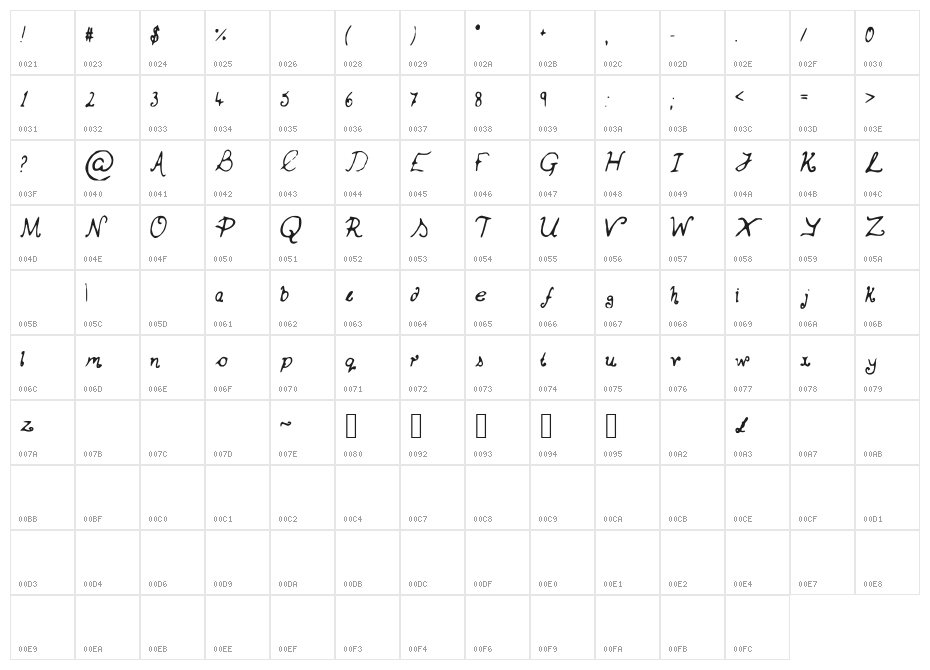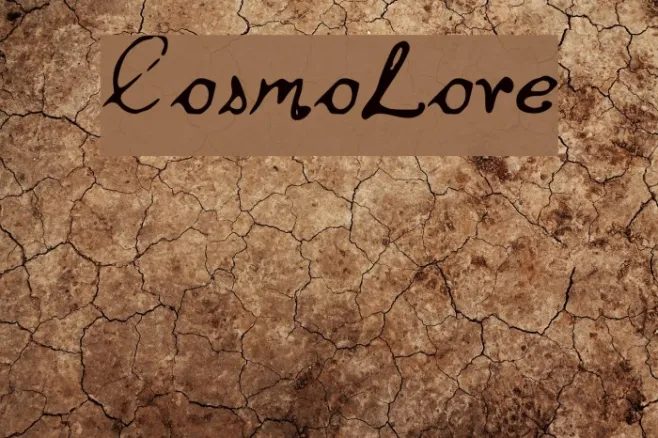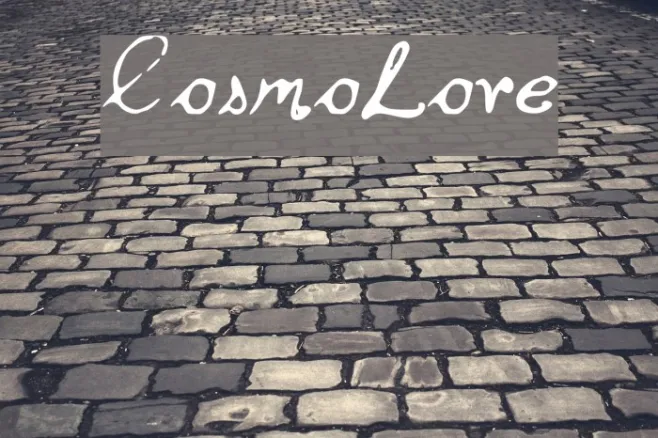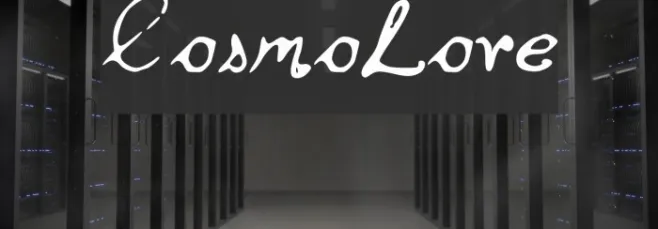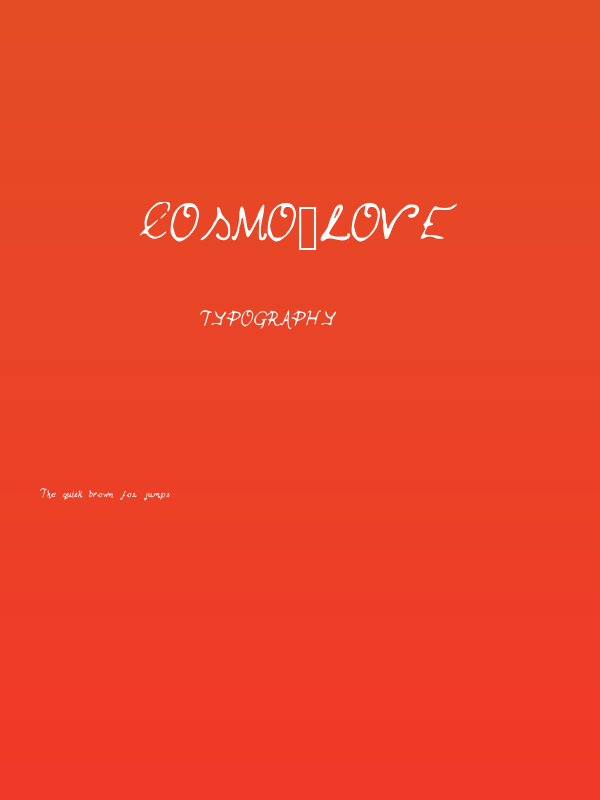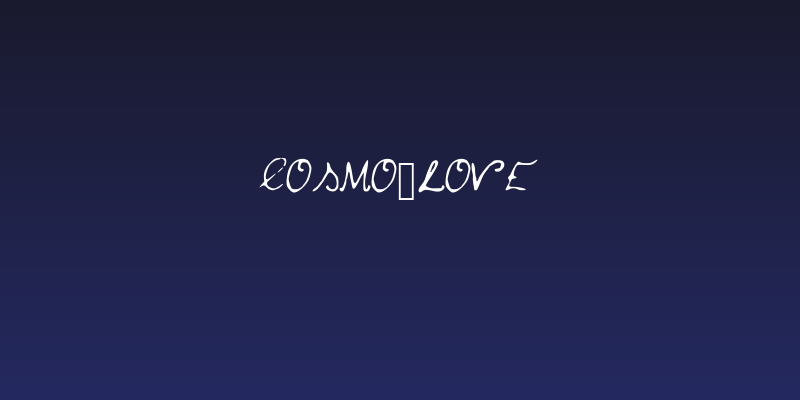
Cosmo_Love Font
Cosmo_Love Description
This font features a whimsical and playful design, characterized by its fluid, cursive-like strokes that give it a handwritten appearance. The letters are slightly slanted, adding to the dynamic and lively feel. Each character has unique flourishes and varying stroke widths, contributing to its artistic and informal style. The numbers and special characters maintain the same playful aesthetic, making the font suitable for creative and expressive projects. The overall look is both charming and distinctive, perfect for adding a personal touch to any design.
| Proposed Projects | Ideal for greeting cards, invitations, children's book covers, and playful branding. |